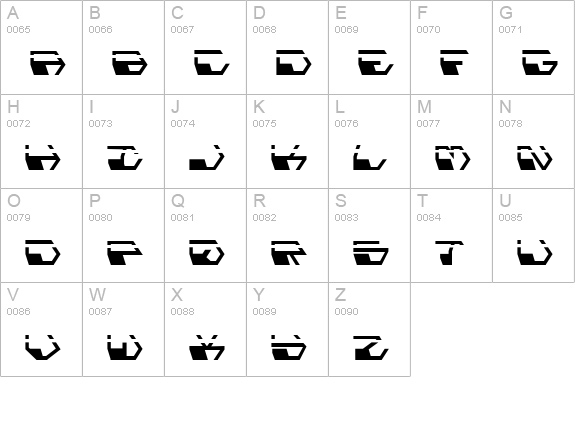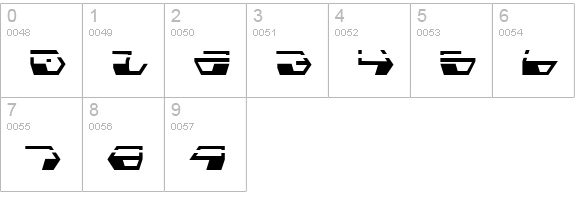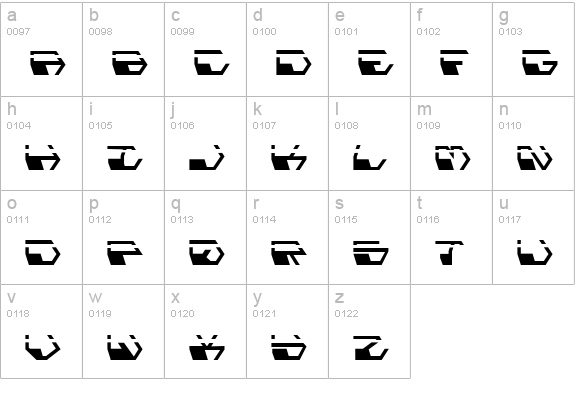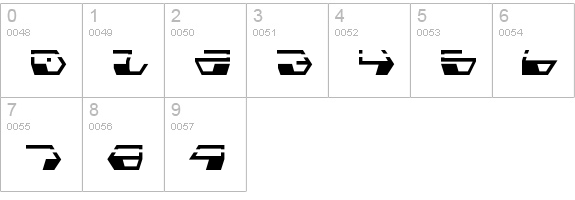
Deranian Laser font is a stunning display typeface that exudes a futuristic and sleek aesthetic. With its sharp lines and geometric shapes, this font is perfect for creating eye-catching designs that demand attention. The precise laser-cut look of Deranian Laser adds a modern touch to any project, making it ideal for logos, headlines, posters, and more. The best part? Deranian Laser font is completely free to download at FontsMarket.com. Don't miss out on the opportunity to add this unique and versatile font to your collection today!